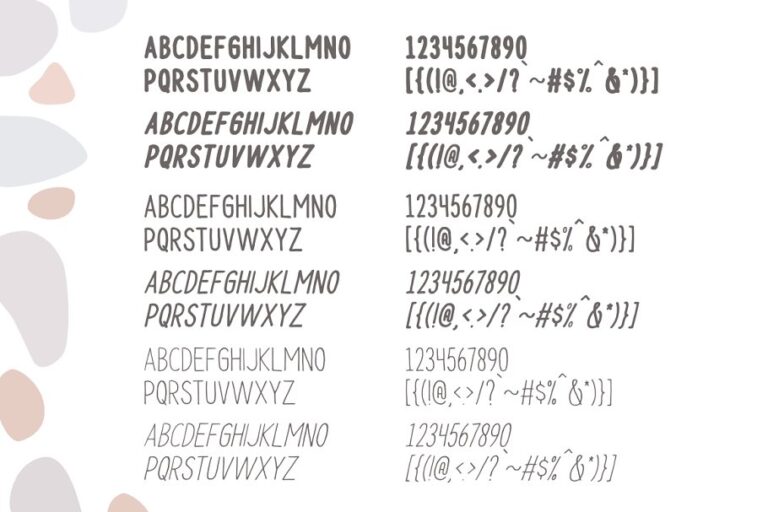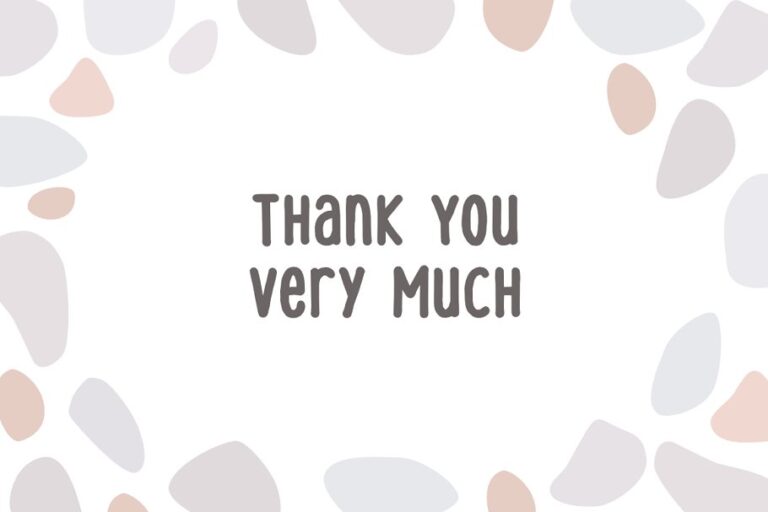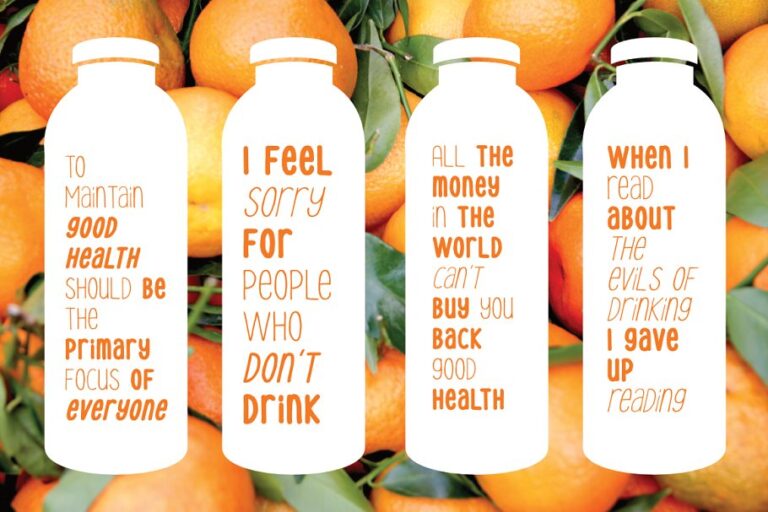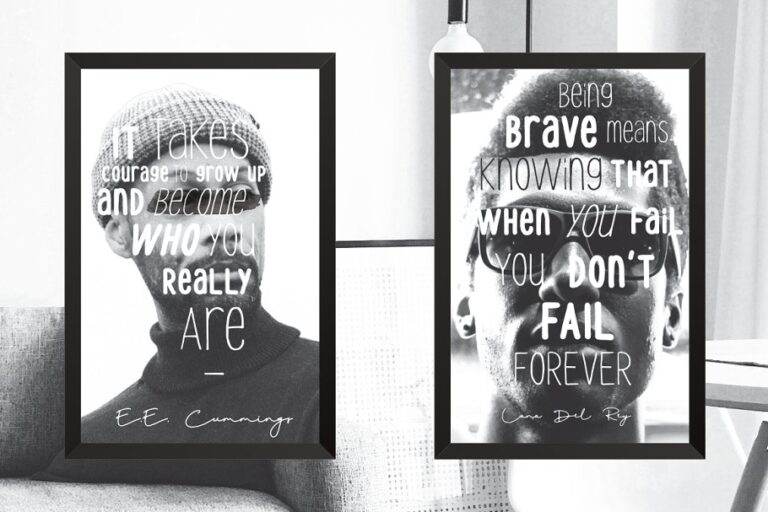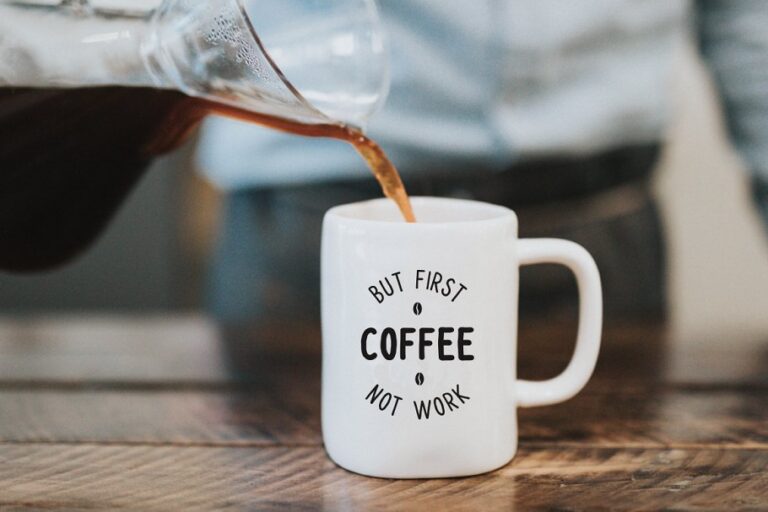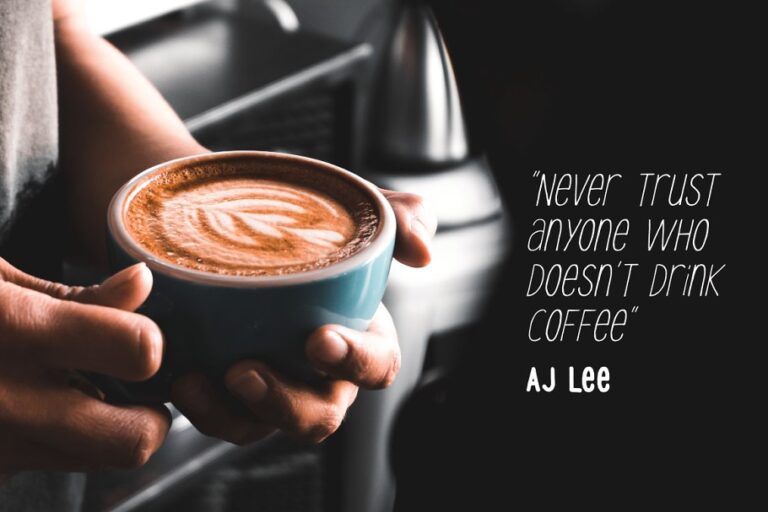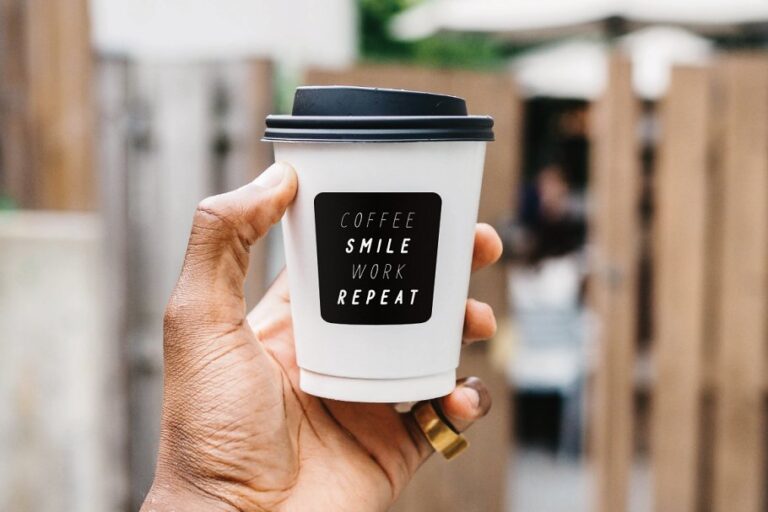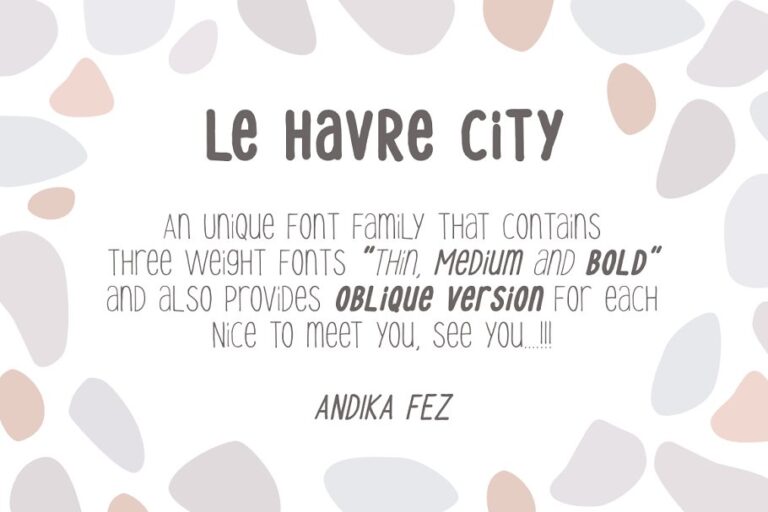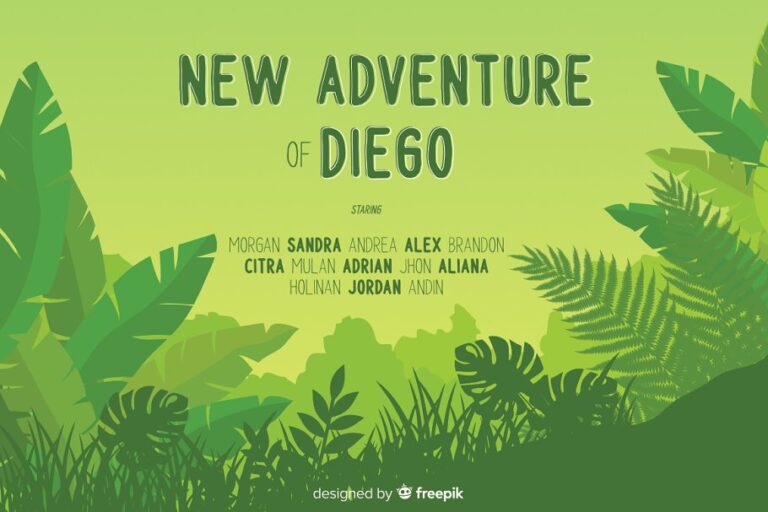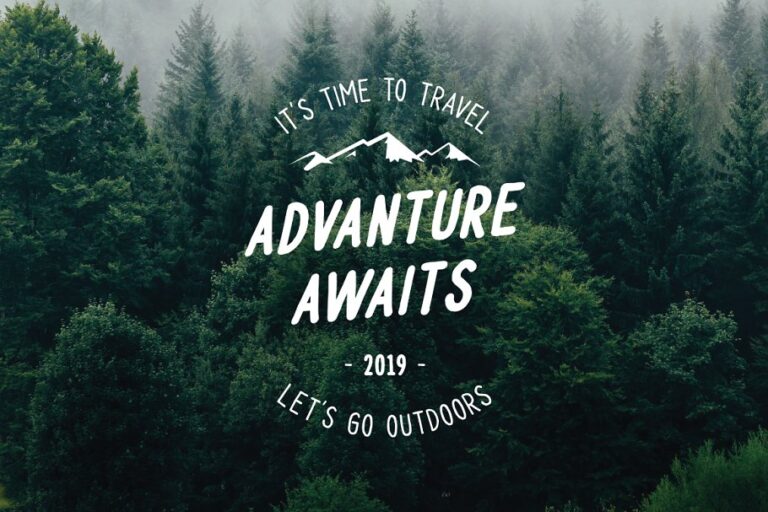
Le Havre City Light
Le Havre City Light Oblique
Le Havre City Bold
Le Havre City is an unique handwritten font family sans serif. Inspired by the handwriting of children, it’s super fun to play with and gives you an unique touch when use it
Le Havre City includes three weights and oblique version of each.
- Three weights / Obique / Numbers & Punctuation / Extensive Language Support
This handwritten font family works great in any branding, logos, magazines, films. The different weights give you full range to explore a whole host of applications, while the outlined fonts give a real modern feel to any project.